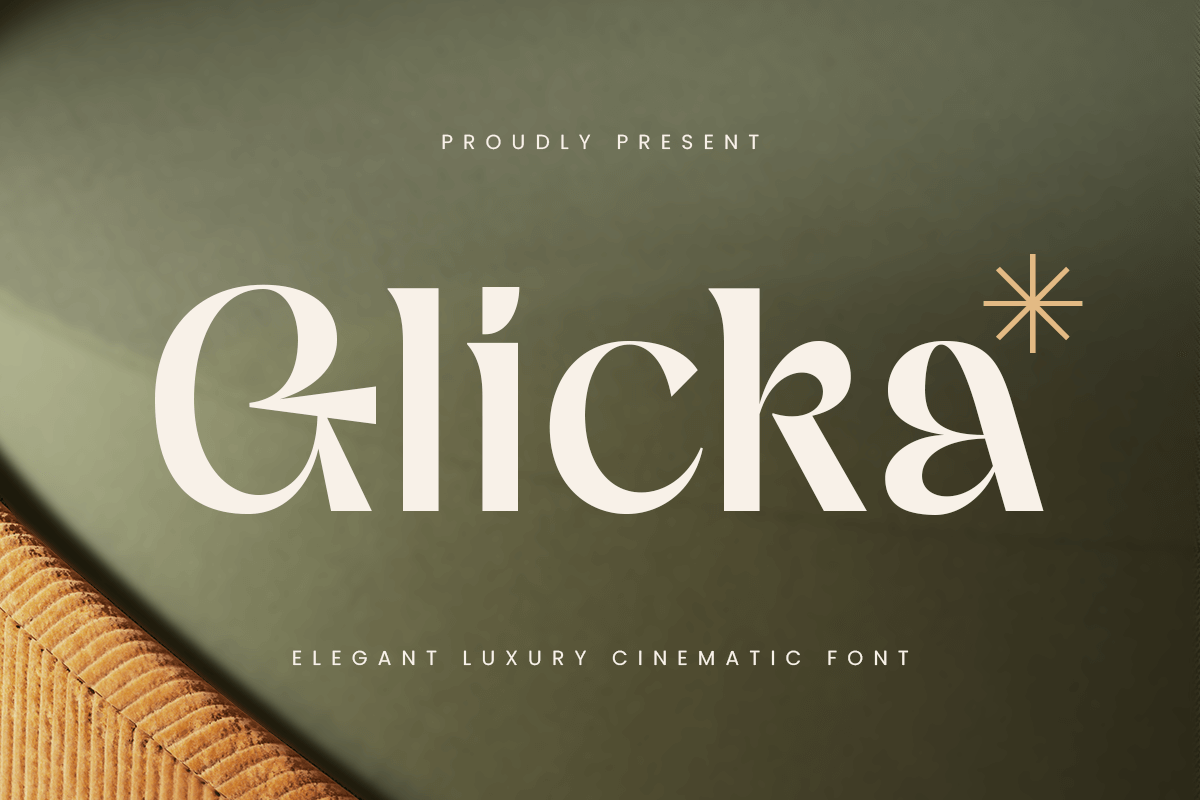
Glicka
-Elegant Luxury Cinematic Font
Glicka - Elegant Luxury Cinematic Font
Glicka is an elegant luxury font that captures cinematic charm with graceful curves and sophisticated letterforms. Ideal for high-end branding, film posters, editorial headlines, and packaging, Glicka font delivers a refined and stylish aesthetic. Every glyph is thoughtfully crafted to evoke elegance, making your designs feel polished and premium.
Inspired by the golden era of cinema and luxury fashion typography, Glicka font blends modern flair with timeless beauty. It’s a perfect choice for designers seeking a font that speaks with poise and presence—ideal for both print and digital projects that require visual impact with a touch of class.
Let Glicka font elevate your work with its bold elegance and cinematic presence, turning every title into a lasting impression.
Glicka Elegant Luxury Cinematic Font Features:
• Elegant Serif Style with Cinematic Feel
• Ready with Regular and Italic Styles
• Perfect for Titles, Fashion, Branding & Editorials
• Punctuation, Numbers, and Symbols